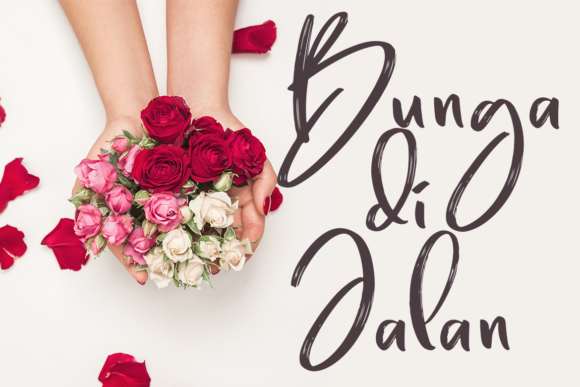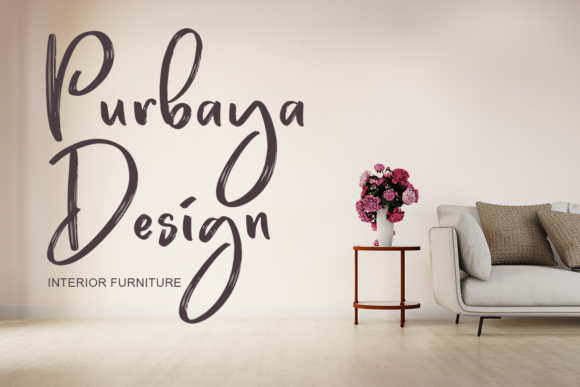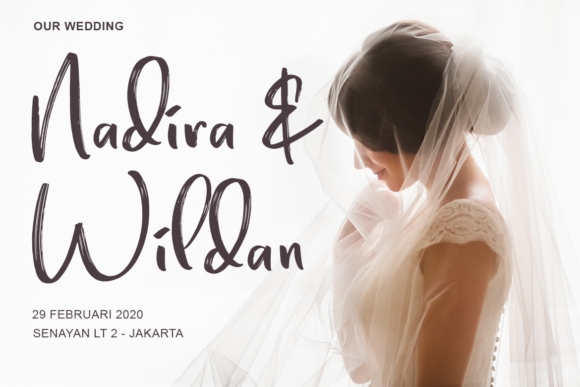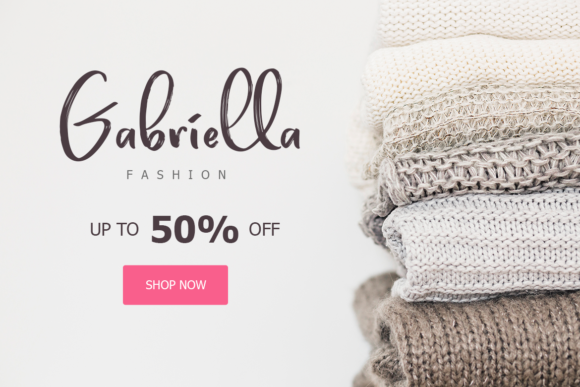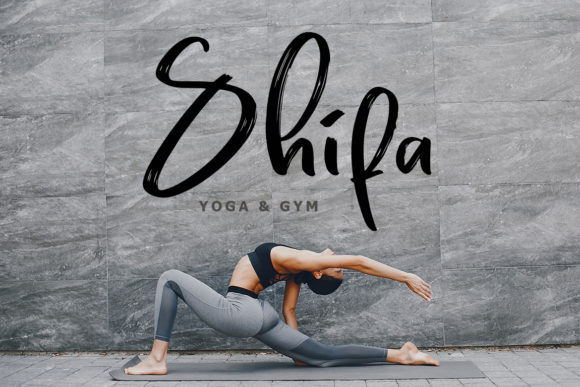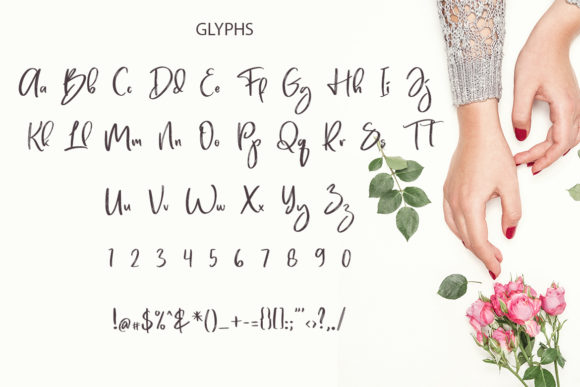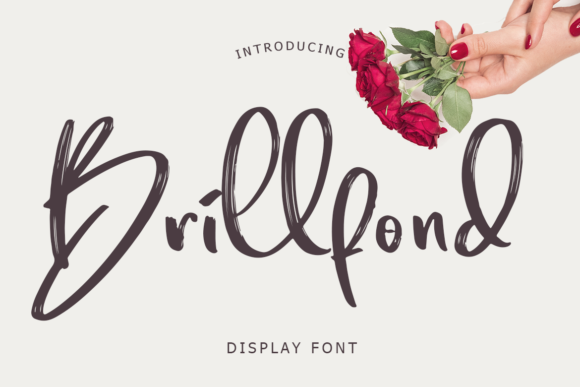
The Quest for the Perfect Font: Discovering Brillfond
I still remember the design project that led me to Brillfond. I was working on a branding project for a crafty DIY business, and I was struggling to find the perfect font. The client wanted something casual, fun, and playful, but also clean and professional. I tried countless fonts, but none seemed to fit the bill. That was when I stumbled upon Brillfond, a beautiful handwritten font created with a brush pen. It was love at first sight! ✨
An Honest Review of Brillfond
So, what makes Brillfond so special? Here are a few things I love about this font:
• ✅ Clean and quirky design that’s perfect for creative projects
• ✨ Handwritten feel that’s casual and approachable
• 💻 Highly versatile and works well for logos, branding, social media, and more
• 🎨 Great for crafty DIY projects, such as handmade cards, invitations, and crafts
Of course, no font is perfect, and Brillfond has a few small quirks:
• 🤔 Some letters may appear a bit inconsistent in size or spacing, which can be a minor issue for certain projects
• ⚠️ Limited language support, which may not be suitable for projects requiring multiple languages
The Story Behind Brillfond
Brillfond was created by a talented font designer who’s passionate about typography. The designer’s inspiration for Brillfond came from their love of handwritten letters and the imperfections that make them unique. The goal was to create a font that’s both clean and quirky, making it perfect for creative projects.
What type of projects is Brillfond best suited for? Brillfond is a versatile font that’s suitable for a wide range of projects, including logos, branding, social media, and crafty DIY projects.
Is Brillfond available in multiple languages? Brillfond has limited language support, so it’s best to check the font’s capabilities before using it for multilingual projects.